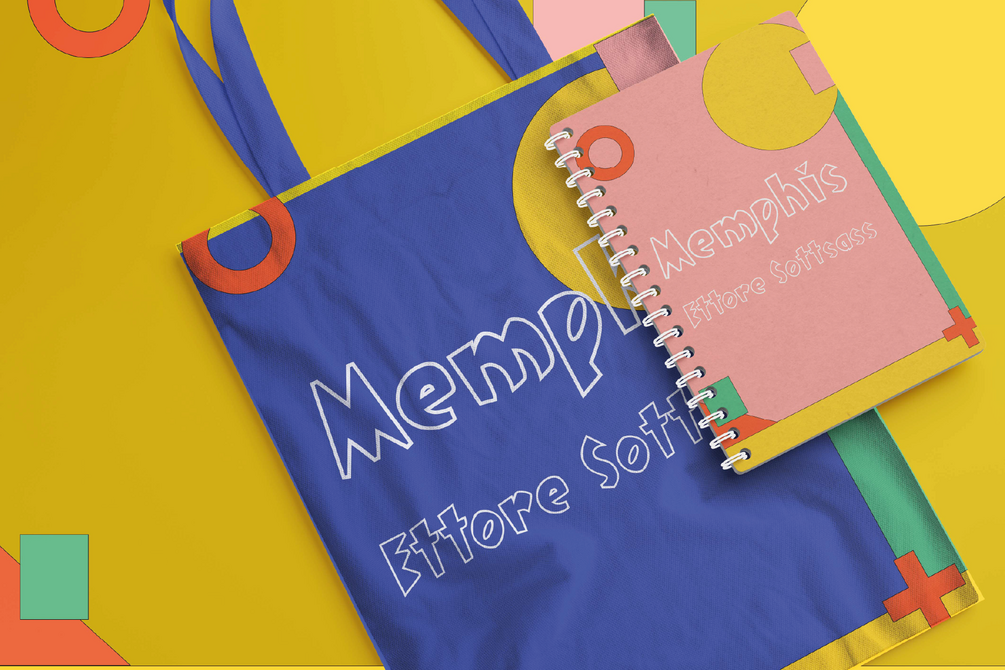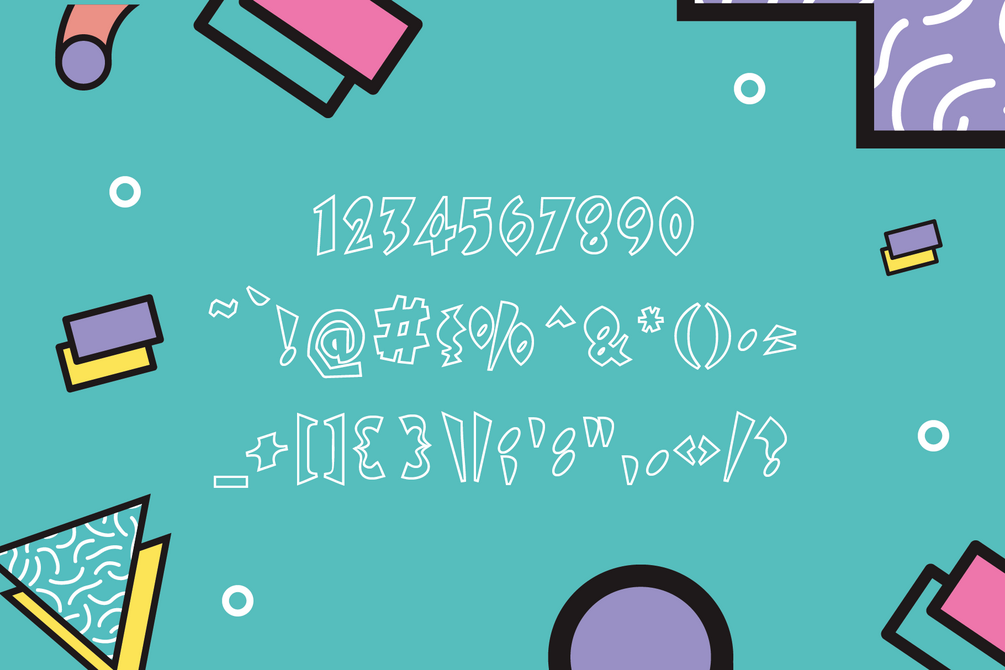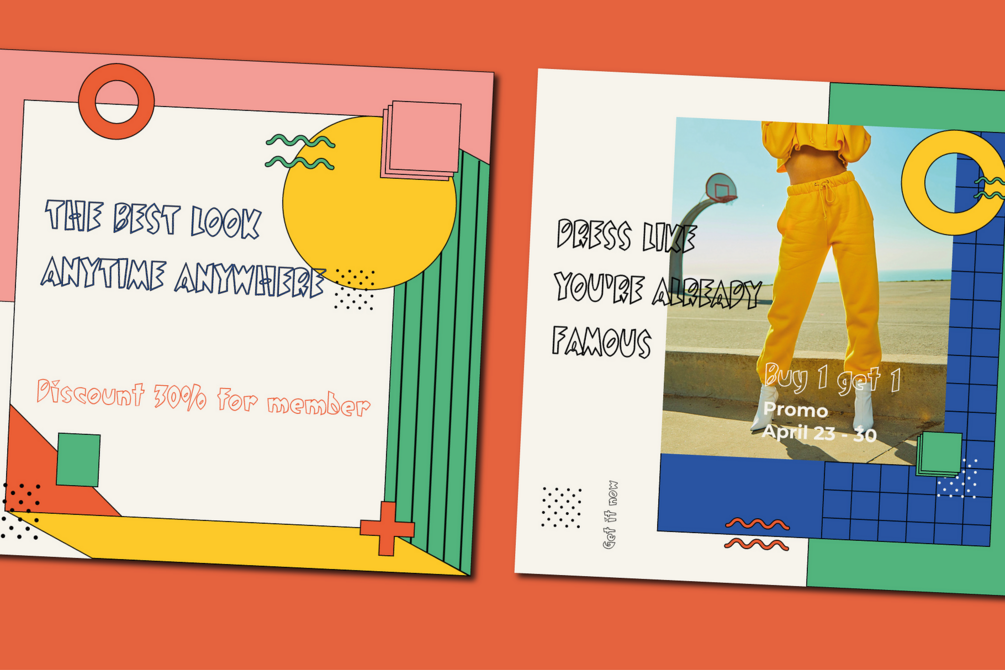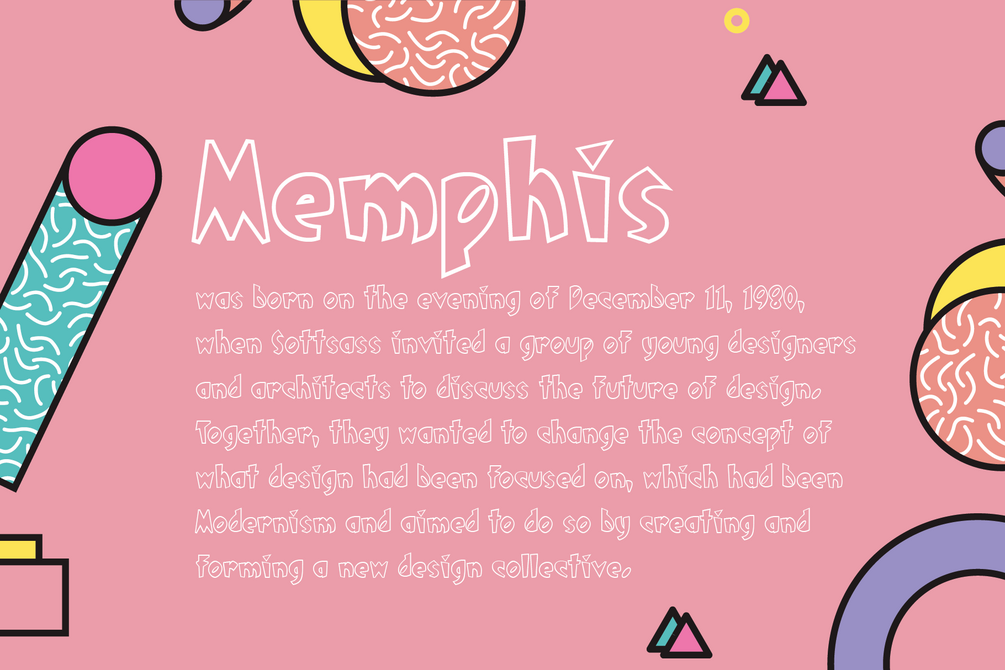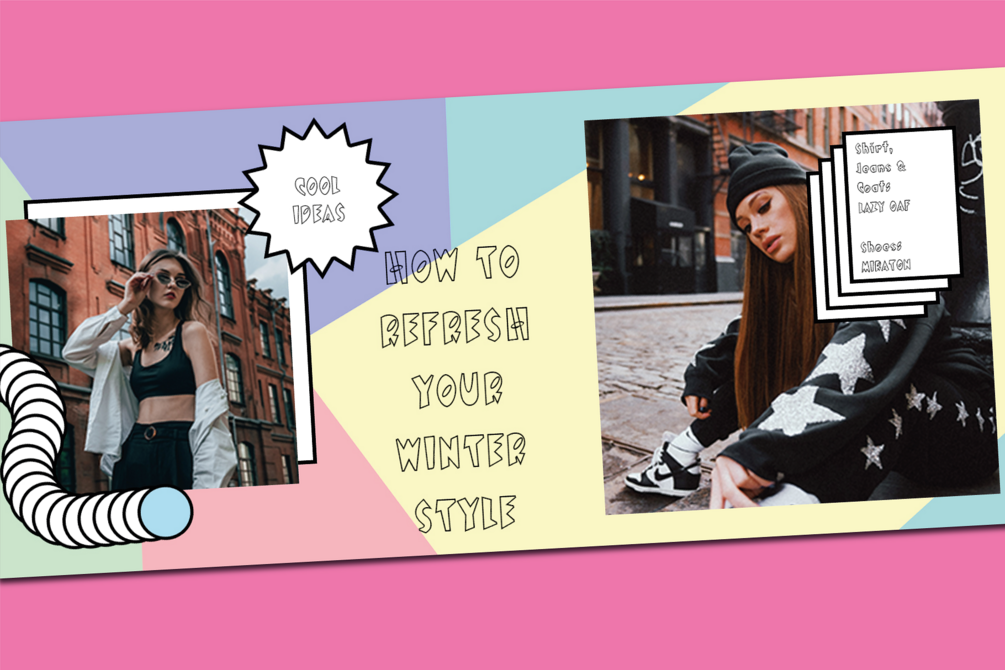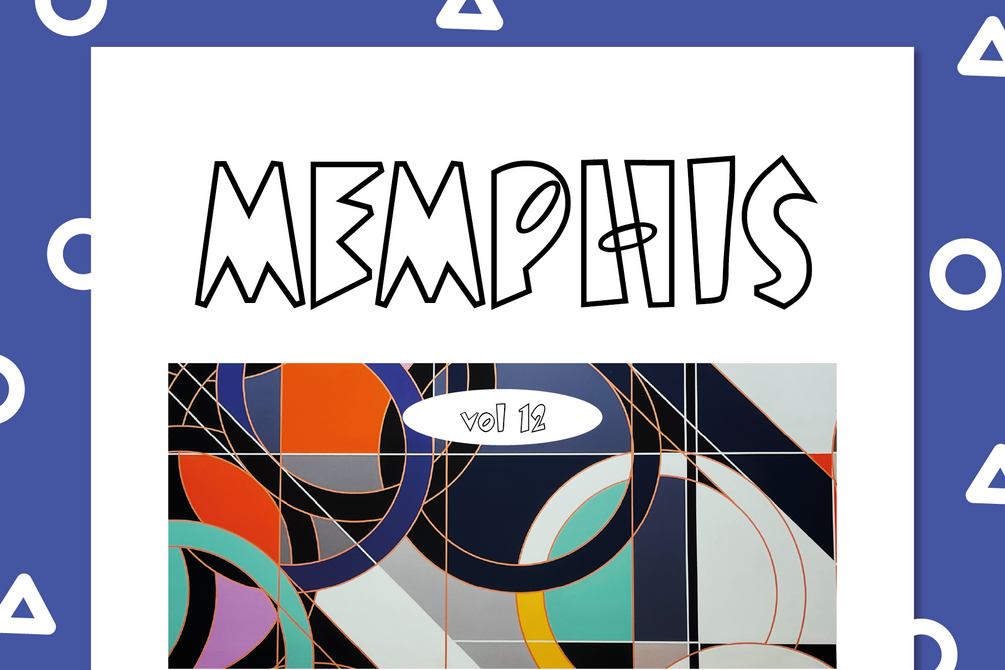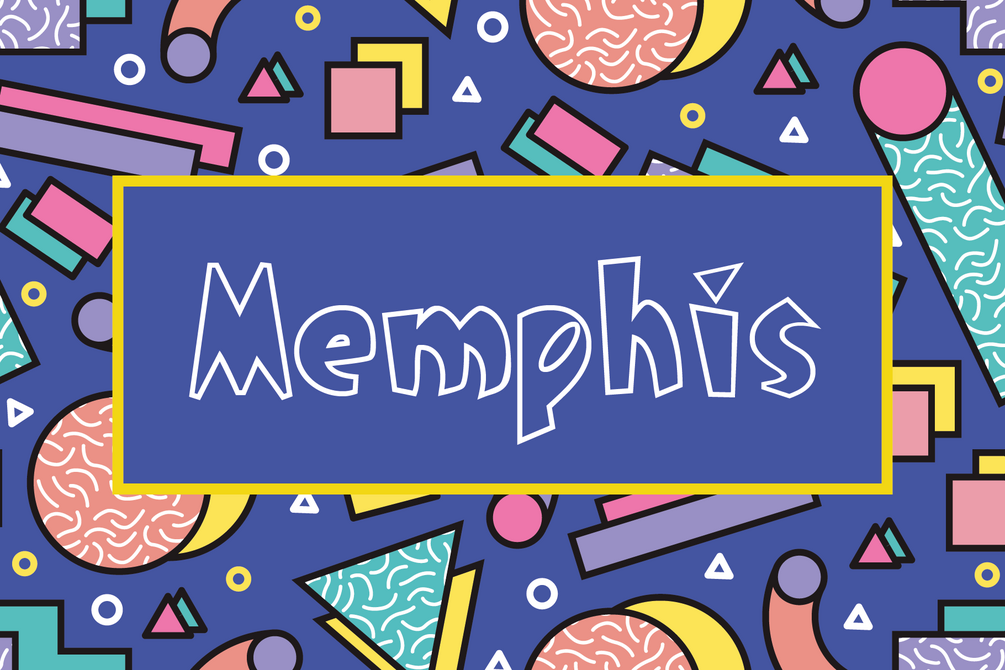
Memphis - Optimistic Typeface
Memphis is a charming/playful font with endless possibilities. Inspired by the Memphis design movement of the 1980s, this quirky typeface will bring joy, optimism, and creativity to your projects. The font comes with upper and lowercase letters, and can be used for virtually any design project. Use it for greeting cards, children books, social media, stickers, branding, board games, album covers, web design, advertising, and more!